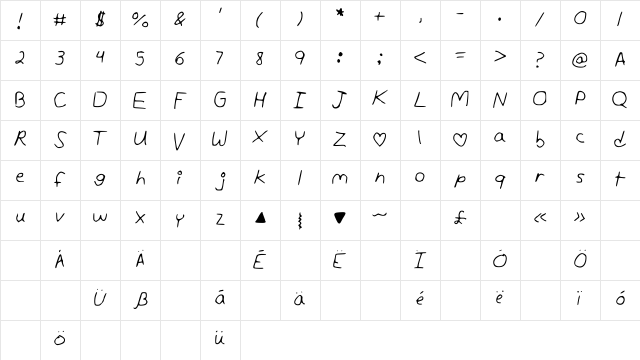
AndreaUnedited Medium Free Font
AndreaUnedited Medium
Design Context for AndreaUnedited
AndreaUnedited is a composed and adaptable typeface that performs quietly and consistently across a wide range of design contexts.
Pro Tip: Use AndreaUnedited in both headline and body roles to test its range before committing to a single application.